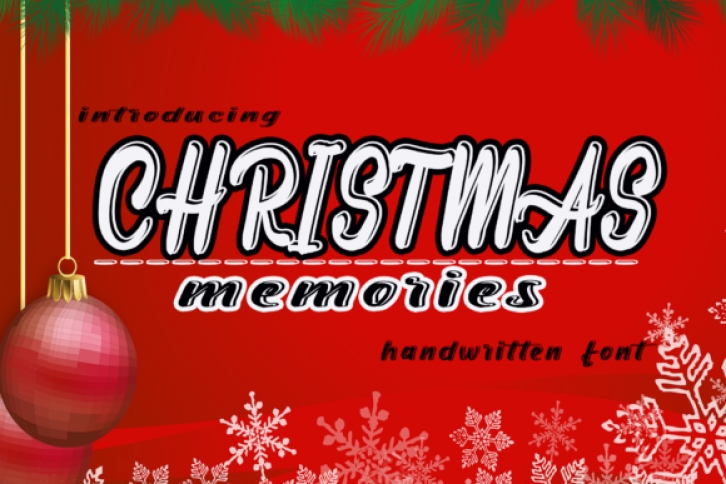
Christmas Memories is a sweet and bubbly handwritten font, designed to brighten up your creations! Add it to your projects and notice how it adds joy and relaxation to each of them!